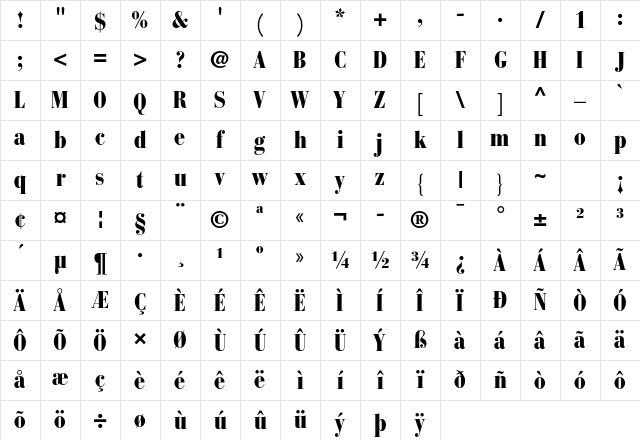
Bauer Bodoni Std 2 Black Condensed
Style: Black Condensed
Designer: Heinrich Jost, Louis H￿ll
Complete Bauer Bodoni Std 2 Black Condensed glyph index. Displaying only characters natively supported by Bauer Bodoni Std 2 Black Condensed font.
Design Context for Bauer Bodoni Std 2
Bauer Bodoni Std 2 is a composed and adaptable typeface that performs quietly and consistently across a wide range of design contexts. Its narrow stance lets it pack a punch even in space-constrained designs.